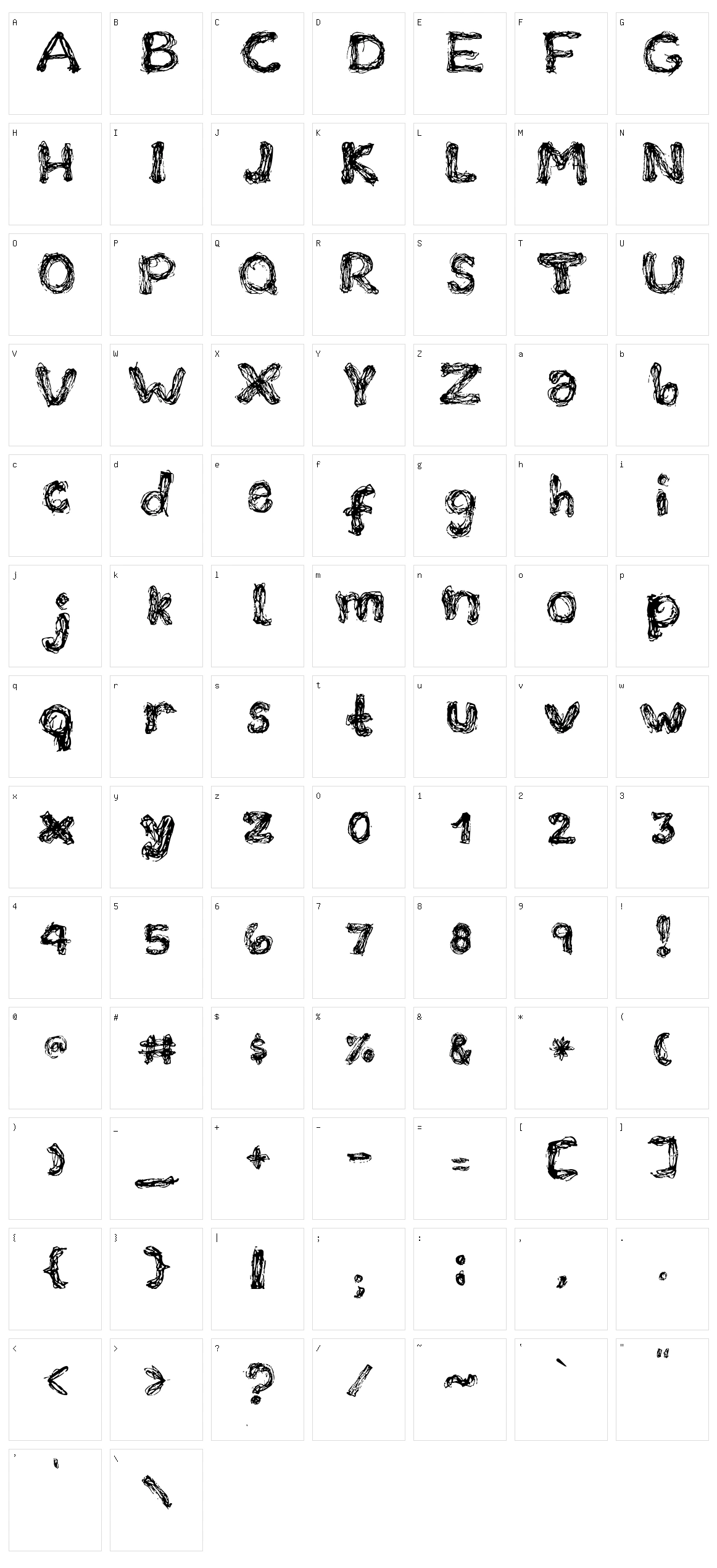
The free font The Grudge is carefully designed by Jacqueline Diaz, showcasing a thoughtful balance of creativity and usability and falls under the Trash font style. When you download the ZIP file, it contains only 107.34 KB of font files, making it lightweight and quick to download. Please review the license details below to understand permitted usage and distribution rights. If license information is not available, we recommend using this font for personal projects only or contacting the author directly for commercial usage permissions.